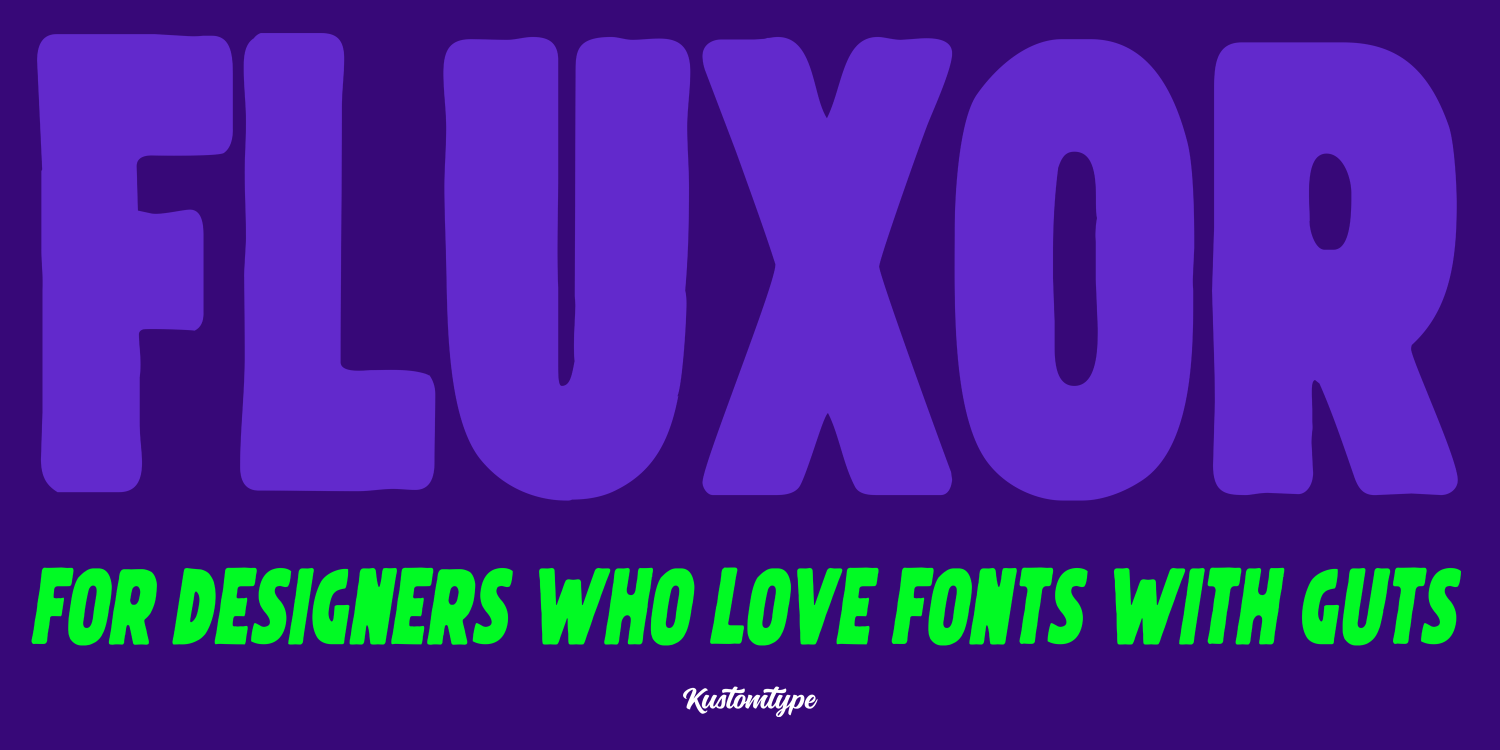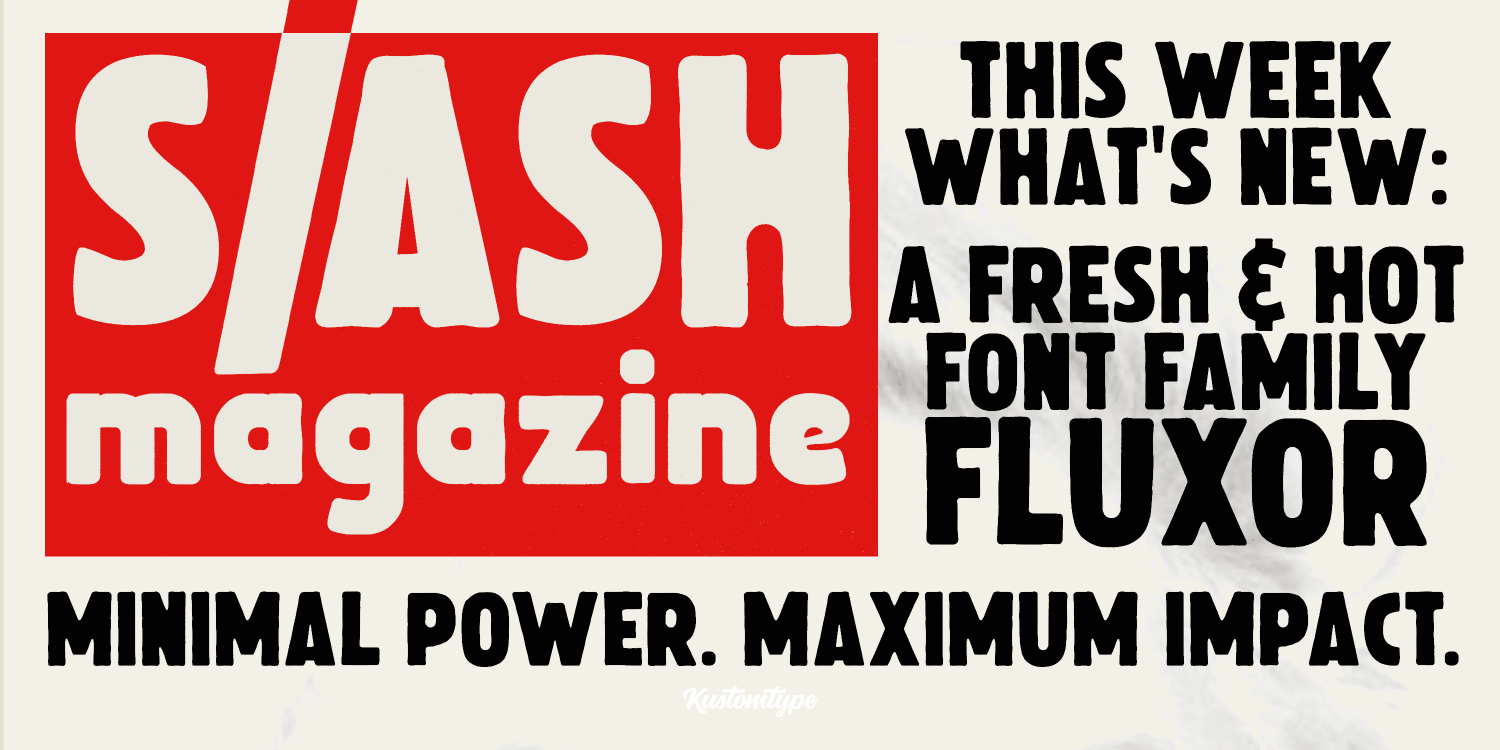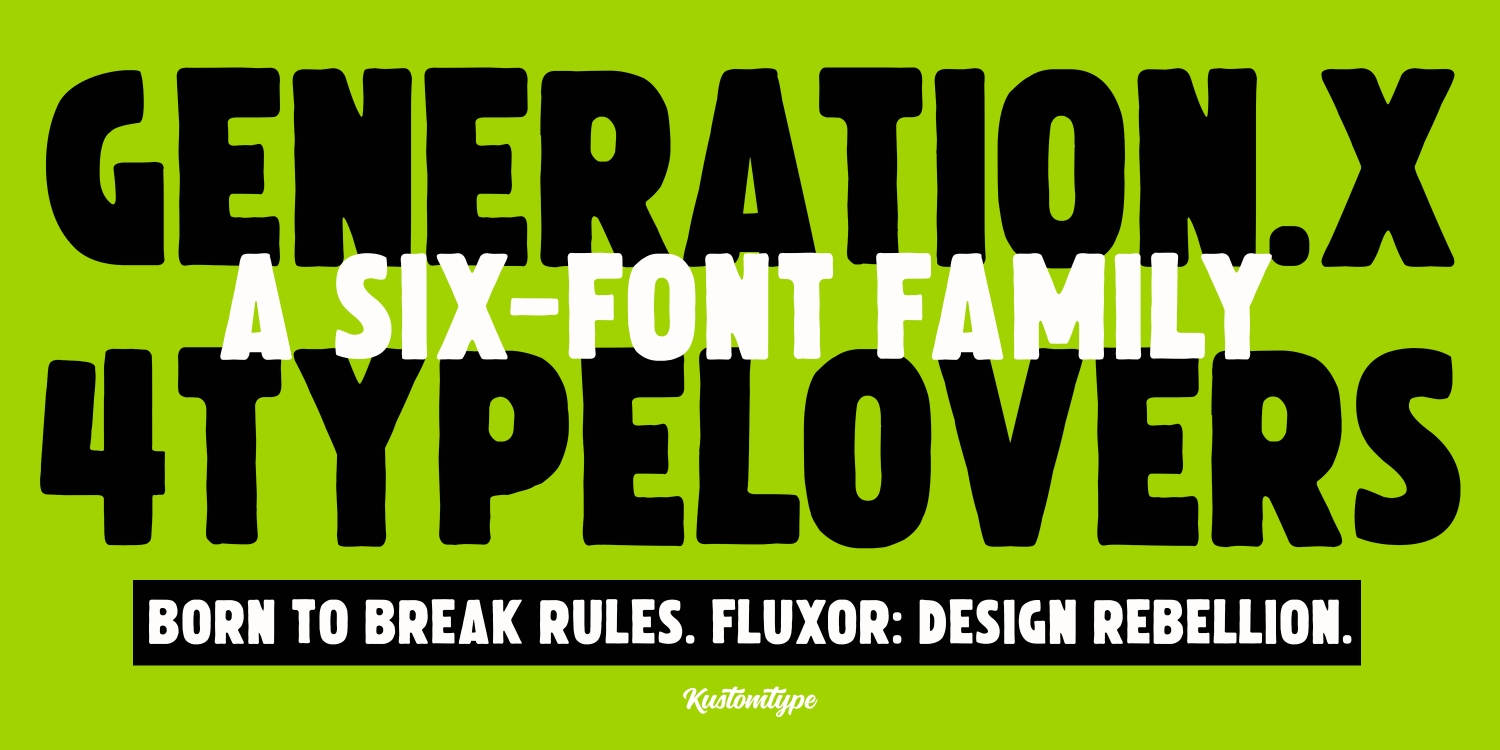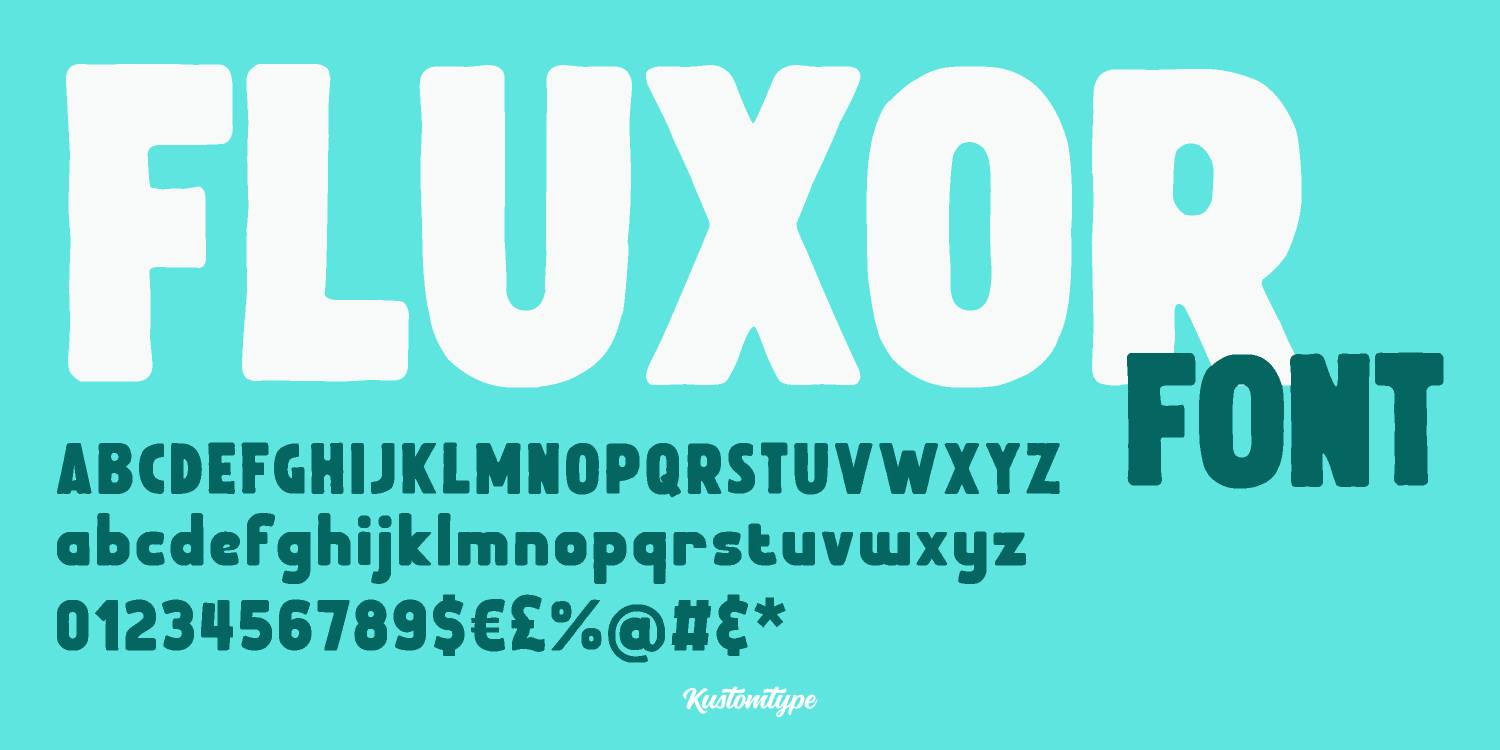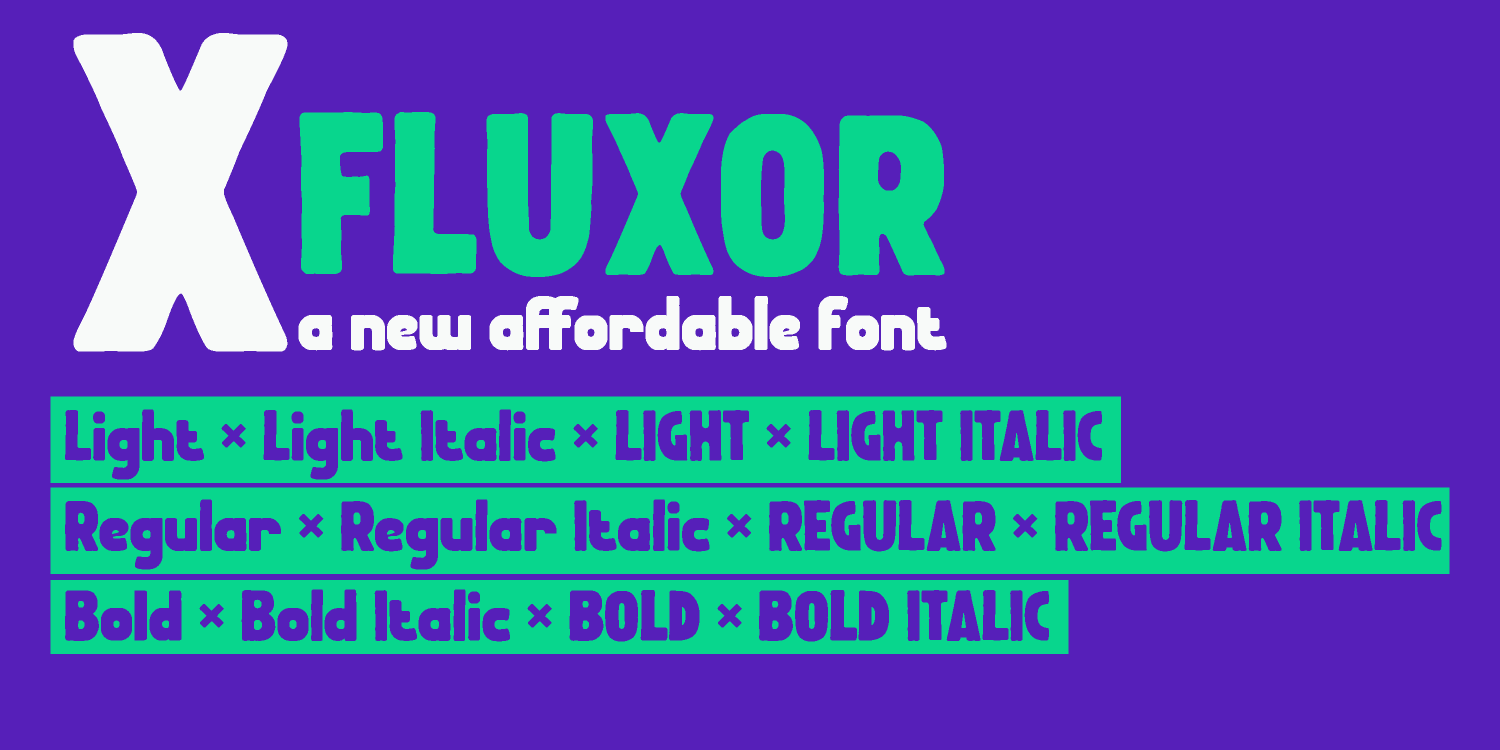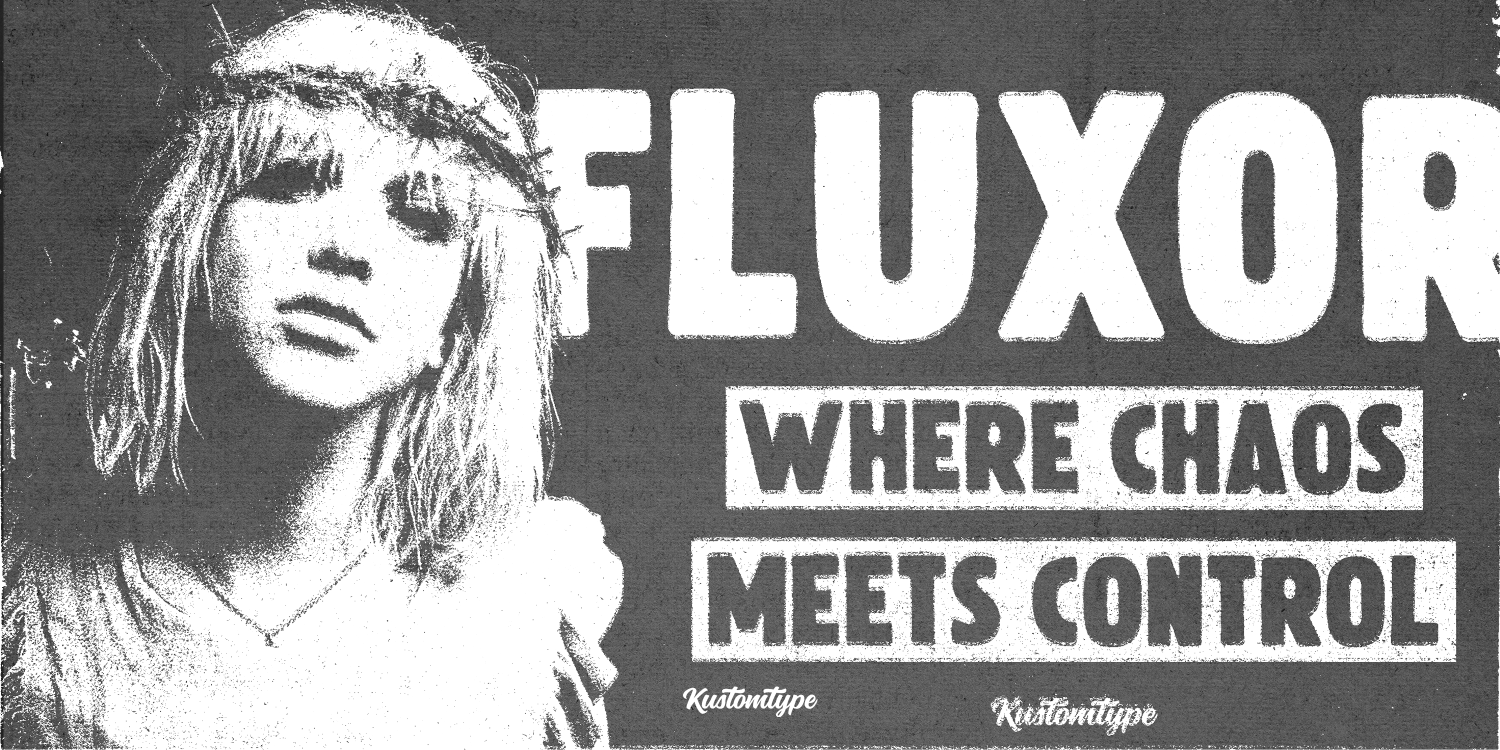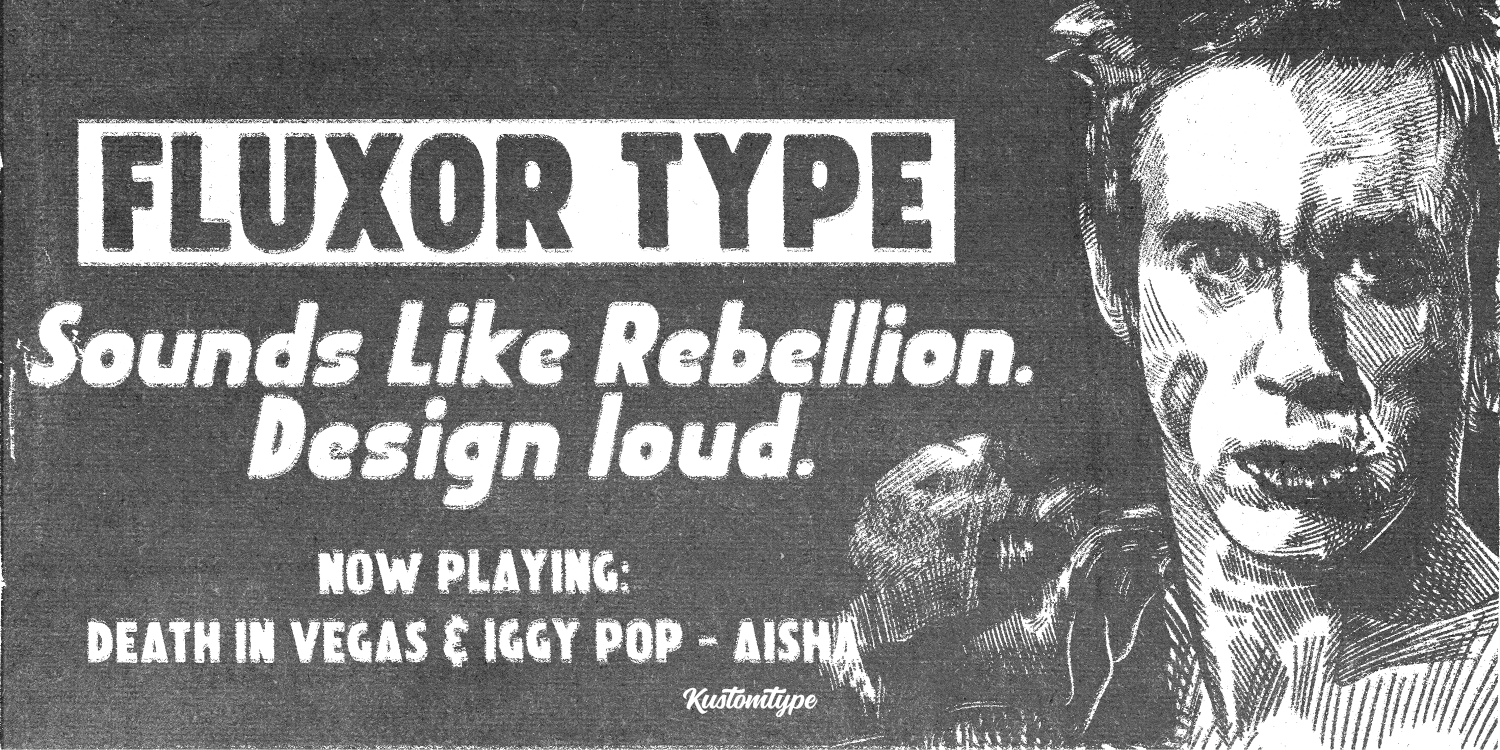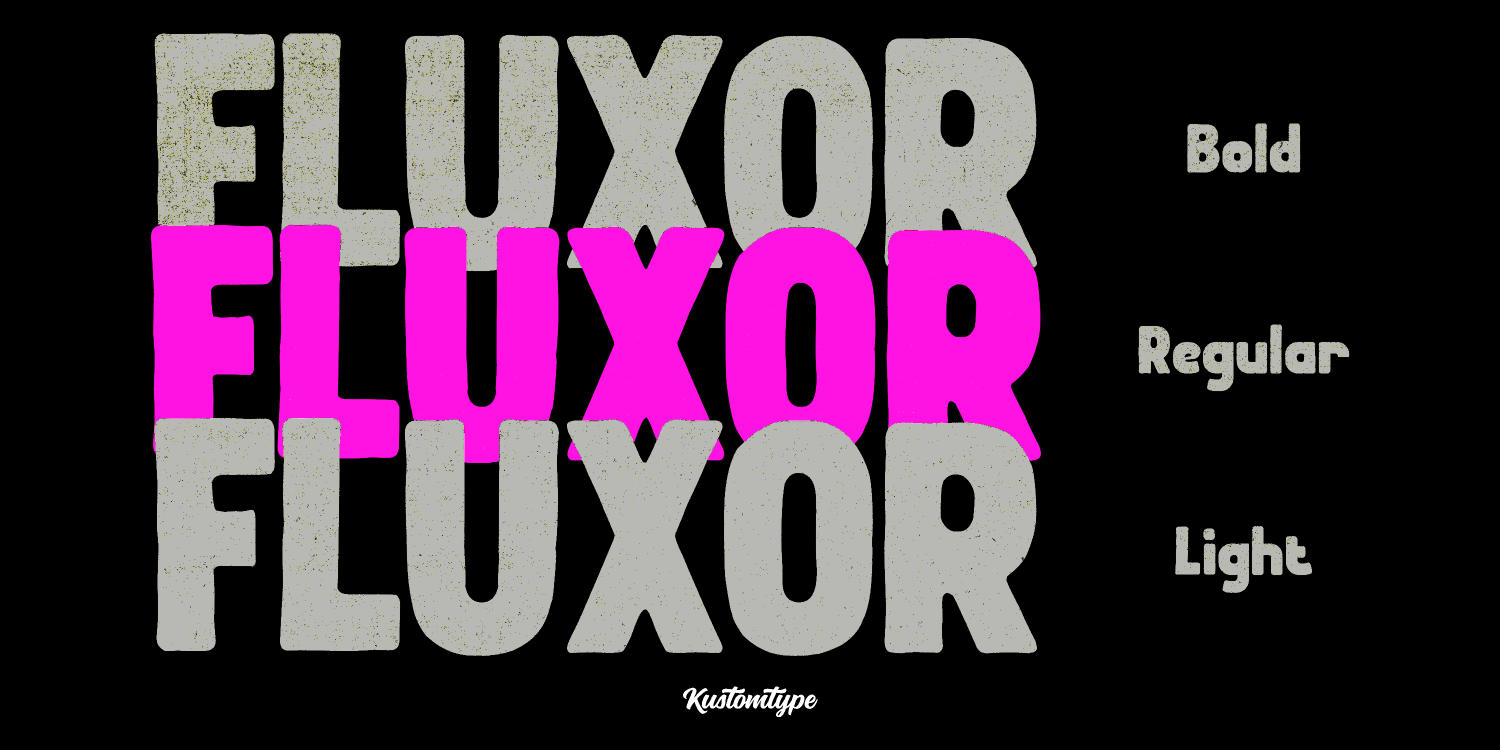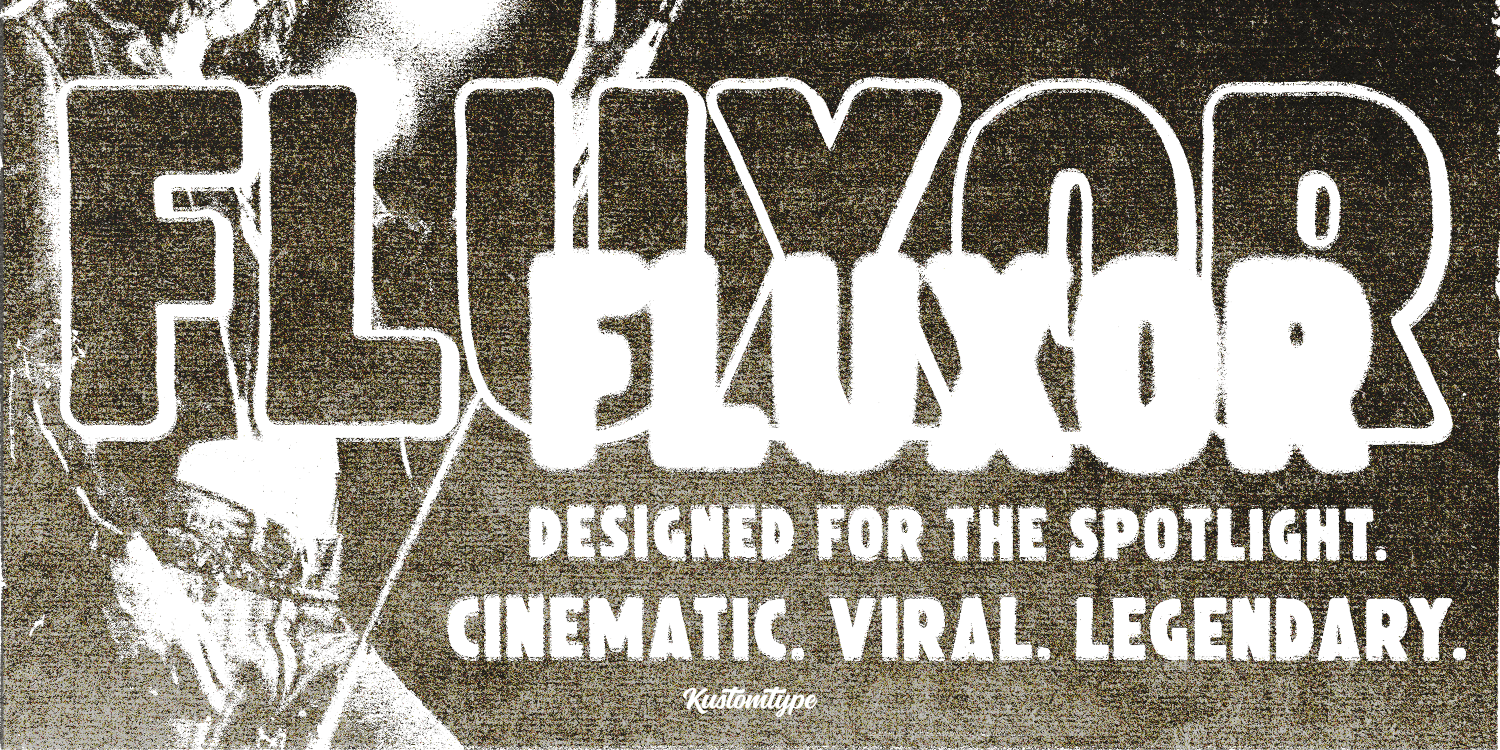
Fluxor
Font Family by Kustomtype
(Fluxor /’flʌk-sər/ n.: Born from “Flux” + “Accelerator” – a font that bends motion into every letter.)
Six weights. Infinite vibes. From whisper-light to earth-shaking bold, Fluxor’s the secret weapon for designers craving grit + grace.
Dominate posters, films, ads—own the visual noise.
Why designers obsess:
Chaos Engineered: Every curve holds tension, like a guitar riff frozen in ink.
Built for Speed: Perfect for campaigns, merch, and titles that need to go viral by yesterday.
No Neutral Zone: Fluxor doesn’t “blend in.” It hijacks attention.
“Fonts should be felt, not just read.” — Coert De Decker aka Kustomtype